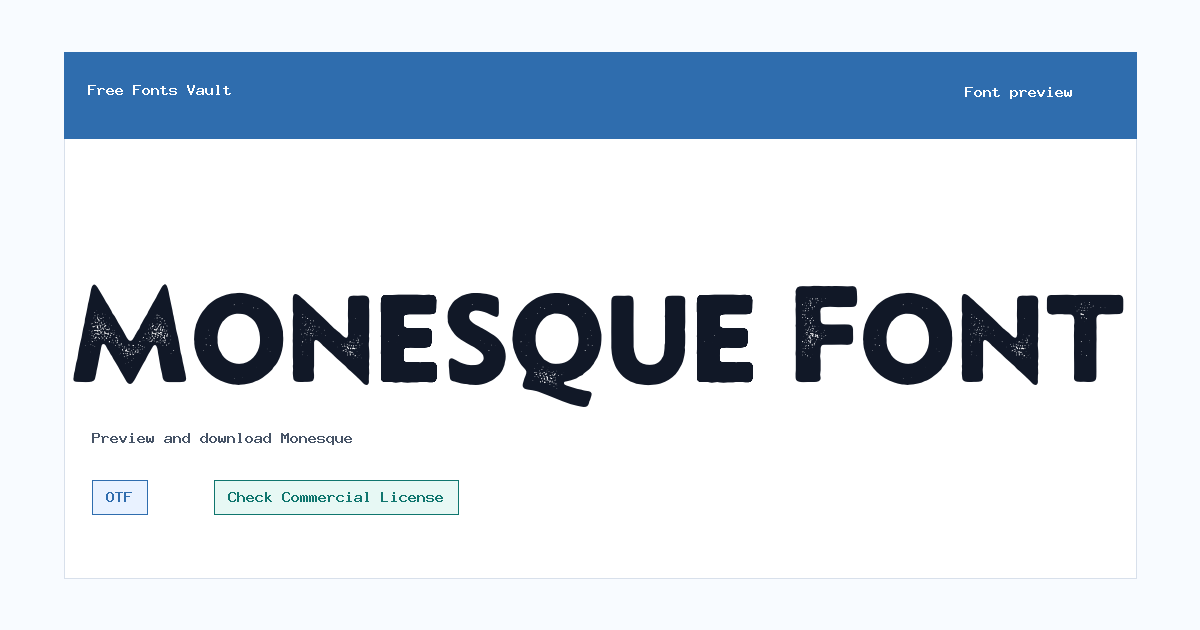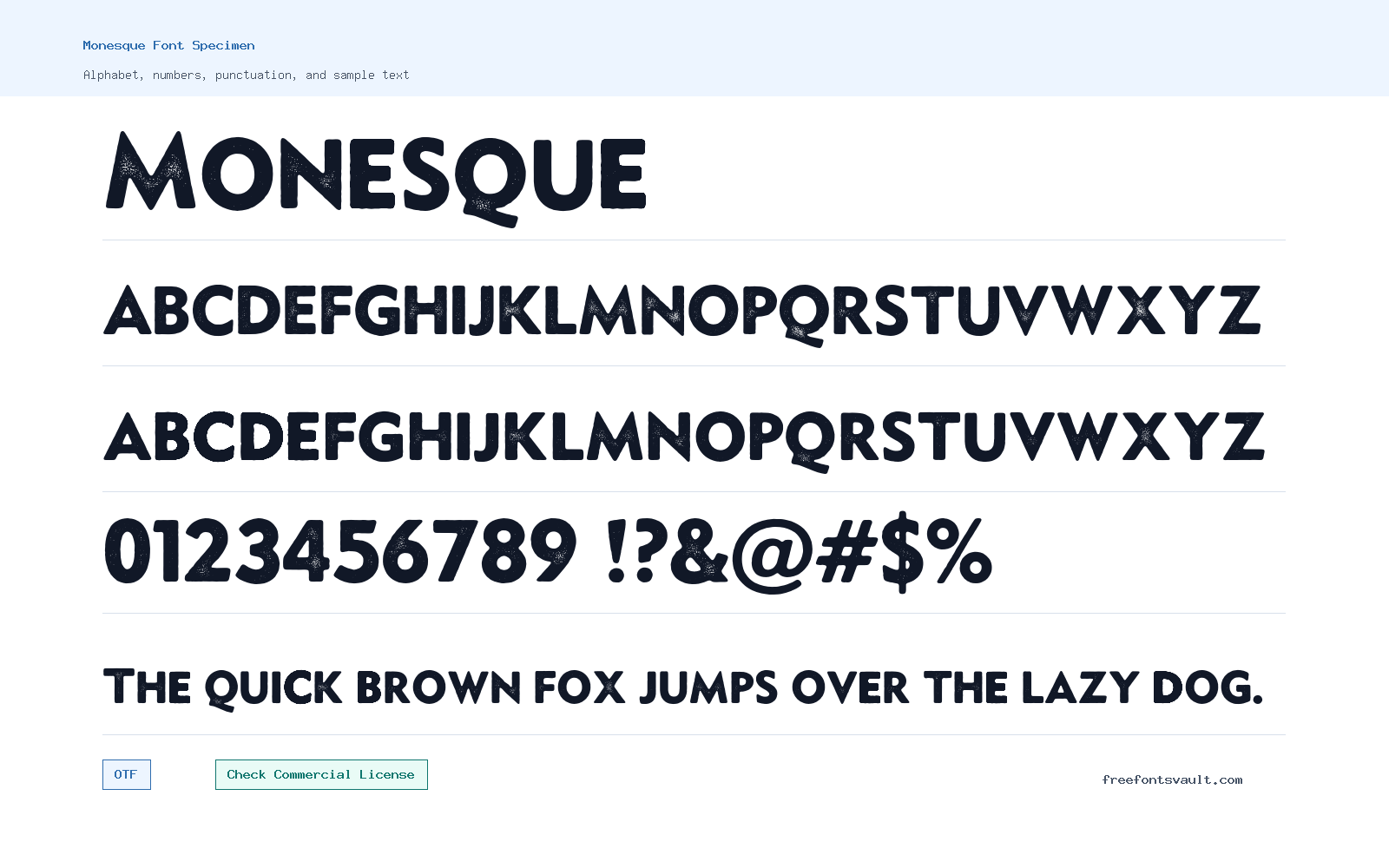
Monesque
- Designer S. John Ross
- Foundry S. John Ross
Monesque font.
Monesque is a bold decorative display font with chunky, uneven letterforms and a hand-cut feel. It is best suited to short text where the texture and weight can stand out clearly.
About Monesque
Monesque uses heavy uppercase-style shapes with rough edges, playful cuts, and irregular details inside several letters. The result feels informal and graphic rather than polished or neutral. It works strongest when the words are large enough for the carved-looking details to show.
Monesque is best treated as a display font for personal testing and short creative layouts. Use it for names, titles, poster drafts, social graphics, and other places where the font style is part of the visual message.
Preview the exact words you plan to use. Display fonts can look very different across letter combinations, so check spacing, punctuation, and numbers before building a full design around the sample.
- Bold decorative letterforms with rough, hand-cut details
- Posters, covers, invitations, and short display titles
- Playful branding drafts, event graphics, menu headings, and themed labels
Use Monesque at larger sizes and with generous spacing. It is readable for short phrases, but the heavy texture can become crowded in small sizes or long blocks of text. Pair it with a plain sans serif or serif for body copy so the display text stays clear. Use a simpler companion font for small details. Let Monesque handle the headline or name treatment, then keep supporting information clean and easy to read.
What kind of projects is Monesque good for?
It works well for short display text such as posters, invitations, covers, menu headings, and themed labels.
Can I use Monesque for body text?
It is not ideal for long reading text. The bold decorative shapes are better for short words, titles, and large display settings.
Who designed Monesque?
The font is credited to S. John Ross.